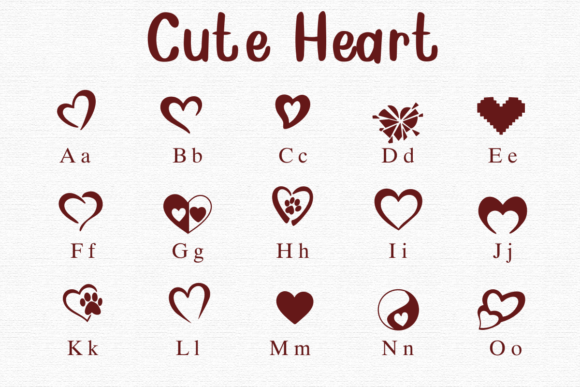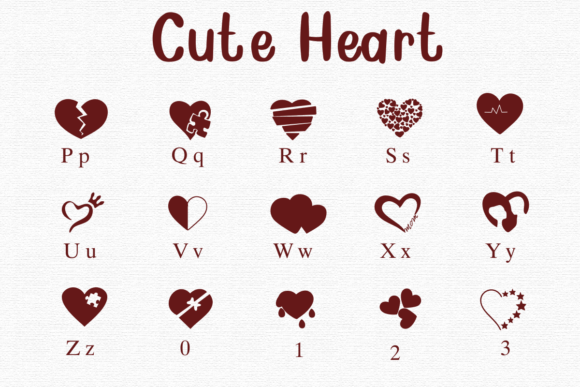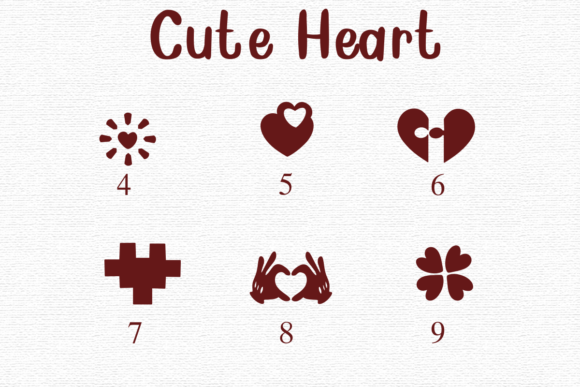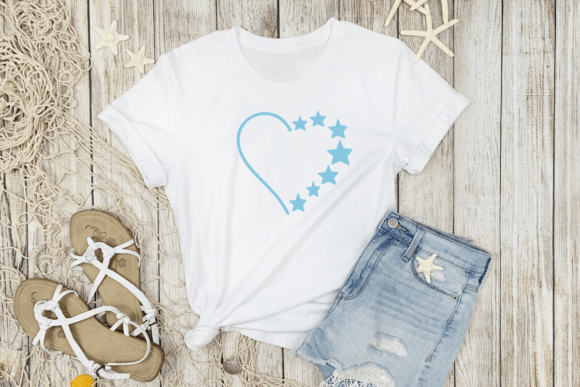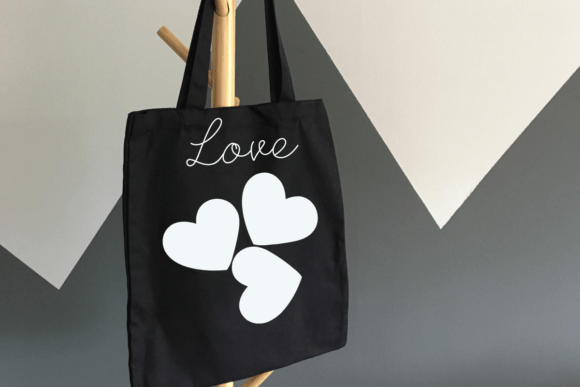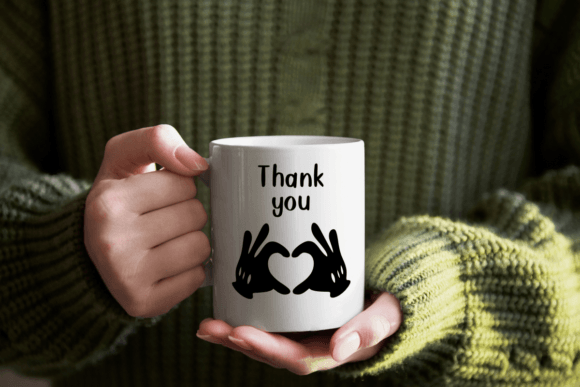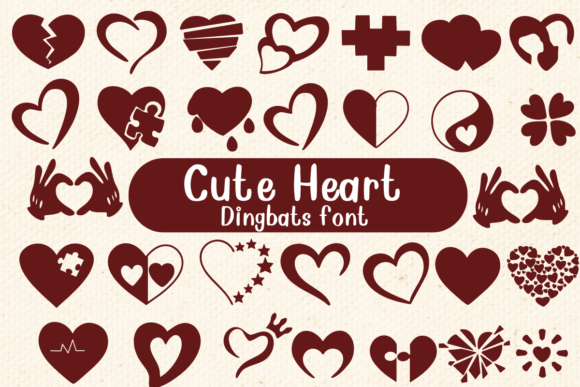
Cute Heart Font: Add a Touch of Love and Whimsy to Your Projects
Are you looking for a font that can add a dash of playfulness and romance to your designs? Look no further than the Cute Heart Font! This delightful font is filled with various heart shapes, making it perfect for crafters, designers, and anyone who wants to add a touch of love and whimsy to their projects.
What is Cute Heart Font?
Cute Heart Font is a playful font that features a collection of heart shapes in different designs. From classic hearts to more whimsical and quirky designs, this font has everything you need to make your text extra special and charming. Whether you’re working on a Valentine’s Day project, a wedding invitation, or simply want to add some personality to your social media posts, Cute Heart Font is the perfect choice.
Features of Cute Heart Font
So, what makes Cute Heart Font so special? Here are just a few of its key features:
- Variety of Heart Designs: With Cute Heart Font, you’ll get access to a wide range of heart designs, from simple and classic to more complex and intricate.
- Playful and Whimsical: This font is perfect for adding a touch of playfulness and whimsy to your projects. It’s ideal for designers and crafters who want to create something fun and eye-catching.
- Perfect for a Range of Projects: Whether you’re working on a digital project or a physical one, Cute Heart Font is versatile enough to use in a variety of contexts.
How to Use Cute Heart Font
Using Cute Heart Font is easy! Here are a few tips to get you started:
- Pair it with Other Fonts: Cute Heart Font works well when paired with other fonts. Try combining it with a bold font for a striking contrast.
- Use it for Headings and Titles: Cute Heart Font is perfect for headings and titles, where you want to make a bold statement.
- Add it to Your Social Media Posts: Add a touch of personality to your social media posts with Cute Heart Font. It’s a great way to stand out from the crowd.
Benefits of Using Cute Heart Font
So, why should you use Cute Heart Font in your projects? Here are just a few benefits:
- Adds a Touch of Personality: Cute Heart Font allows you to add a touch of personality to your projects, making them more engaging and eye-catching.
- Perfect for Valentine’s Day and Wedding Projects: With its heart designs, Cute Heart Font is perfect for Valentine’s Day and wedding projects.
- Increases Engagement: Using a playful font like Cute Heart Font can increase engagement and make your projects more shareable.
If you’re a designer or crafter looking to use Cute Heart Font in your projects, here are a few tips:
- Experiment with Different Heart Designs: Don’t be afraid to experiment with different heart designs to find the one that works best for your project.
- Use it in Combination with Other Elements: Cute Heart Font works well when combined with other design elements, such as images and graphics.
- Make it Your Own: Don’t be afraid to put your own spin on Cute Heart Font. Experiment with different colors, sizes, and styles to make it your own.
Cute Heart Font is a playful and whimsical font that’s perfect for adding a touch of love and personality to your projects. With its variety of heart designs, ease of use, and versatility, it’s ideal for designers and crafters of all levels. Whether you’re working on a Valentine’s Day project, a wedding invitation, or simply want to add some personality to your social media posts, Cute Heart Font is the perfect choice.